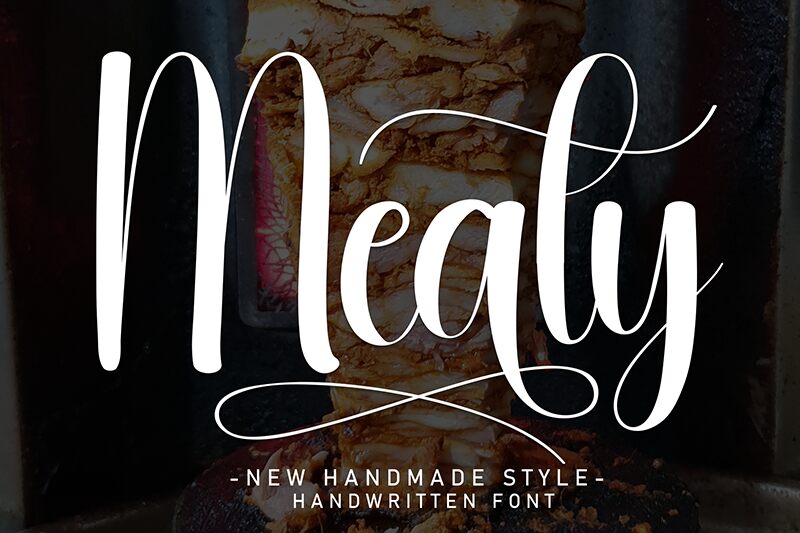
Meaty
Meaty font, designed by Andi Moz, is a free calligraphy font with a flowing and elegant style. It embodies sophistication with expressive, ornate elements. Its condensed form and script influences give it a uniquely charming and stylish appearance.